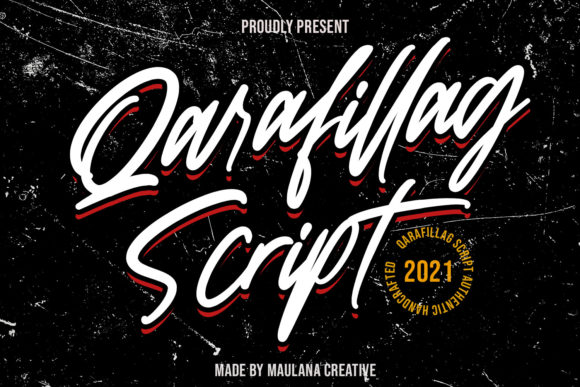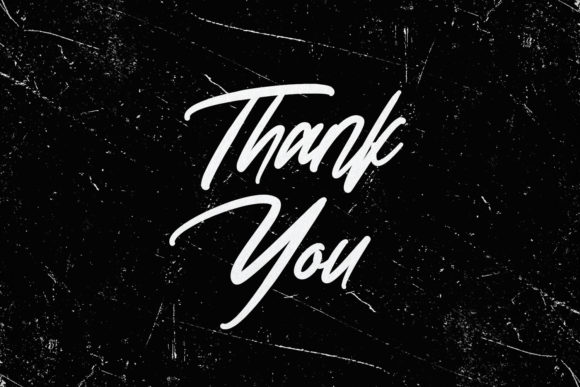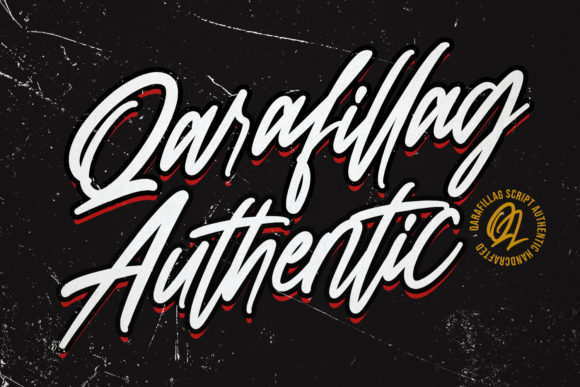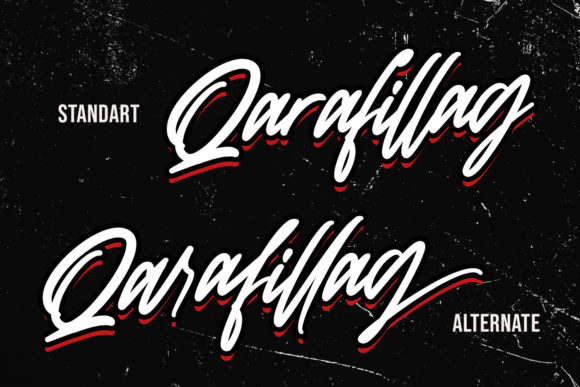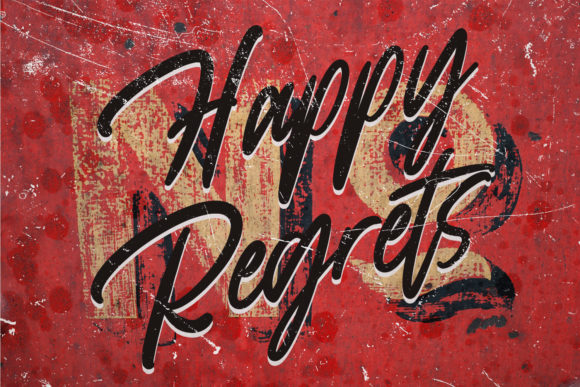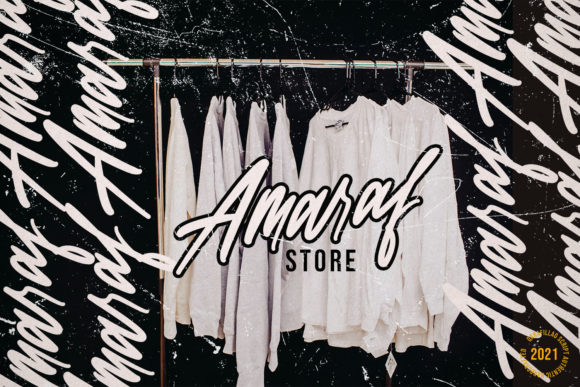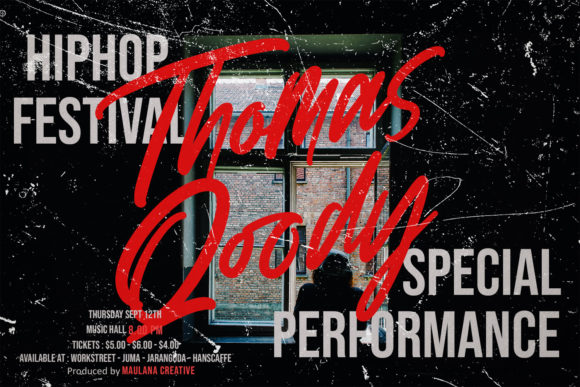
Qarafillag Script Font
About Qarafillag Script Font
Qarafillag Script is an equally sophisticated and bold handwritten font that’s great for delivering any message with confidence, authenticity and charm. It will elevate a wide range of crafting ideas, from cards, to branding, labels and much more.